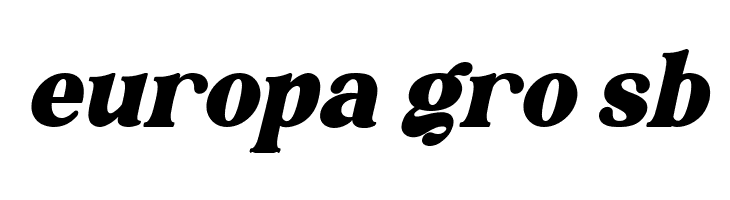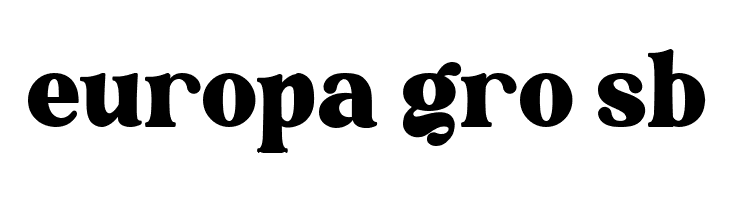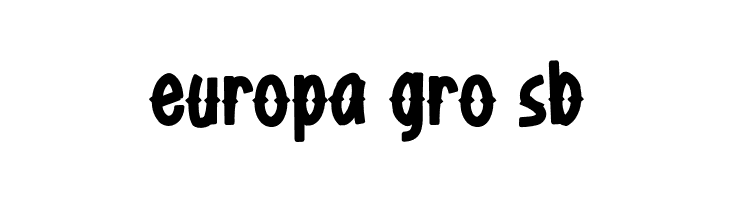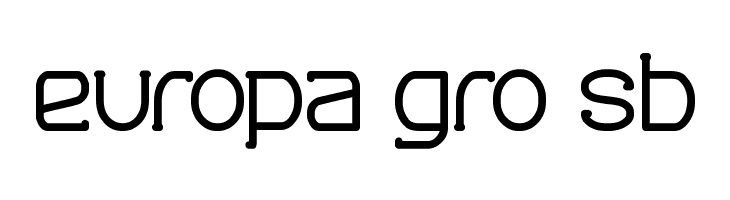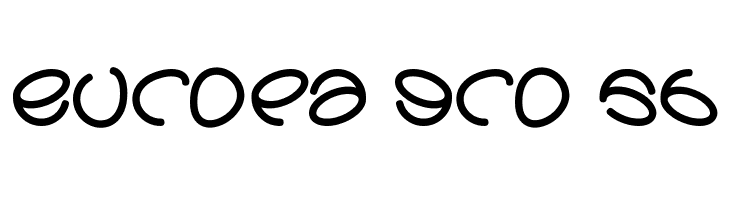
A bold, elegant serif font with a classic yet modern appeal.
An elegant and bold italic font with a classic yet modern appeal.
A decorative font with playful, flowing curves and bold, rounded strokes.
A decorative, futuristic font with smooth, continuous curves and abstract shapes.
A modern, geometric font with rounded elements and consistent stroke width.
A modern, rounded font with a playful and geometric style.
A bold, futuristic font with sharp angles and geometric shapes.
An ornate and decorative font with elegant swirls and flourishes.
A bold, playful font with a hand-drawn aesthetic and rounded characters.